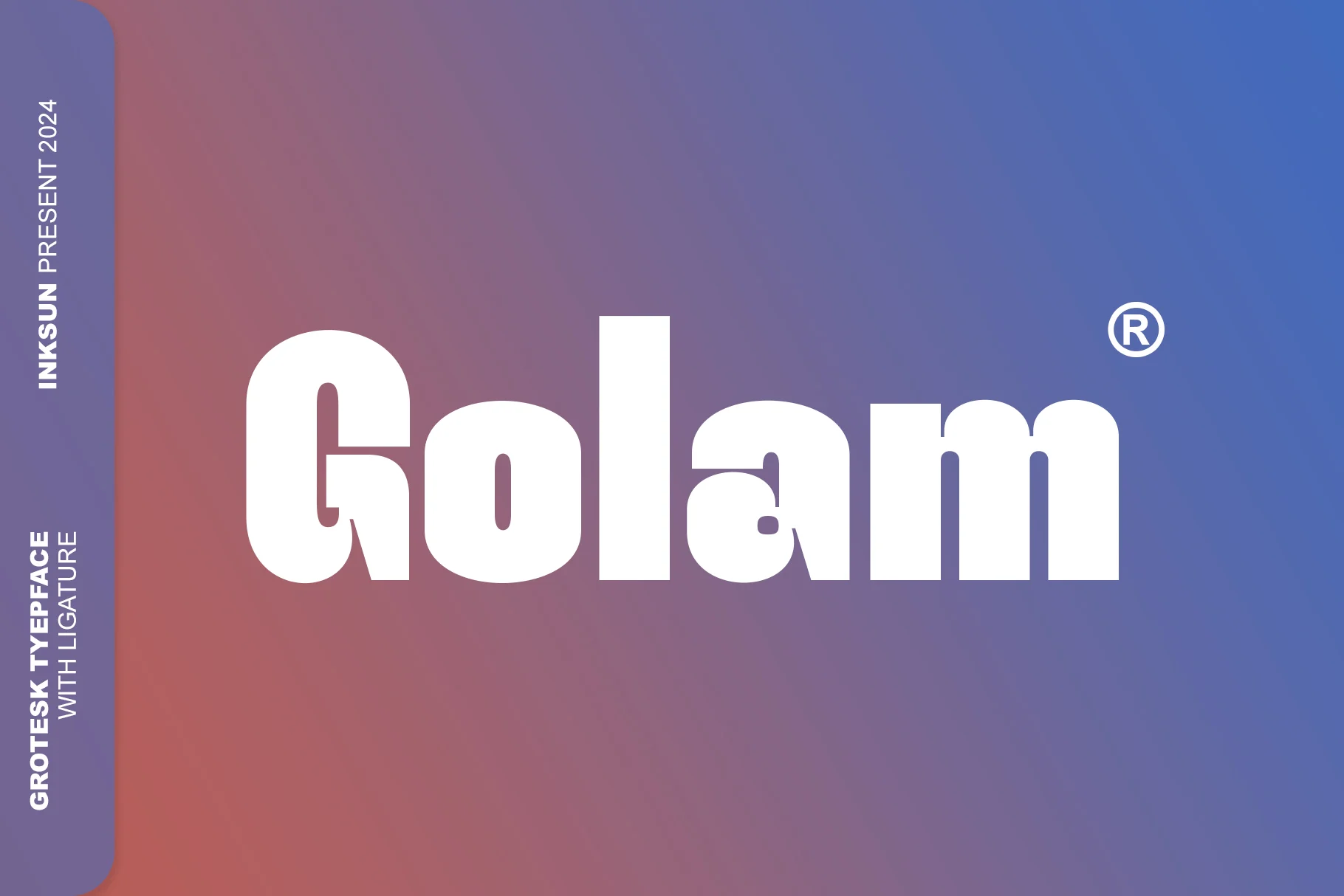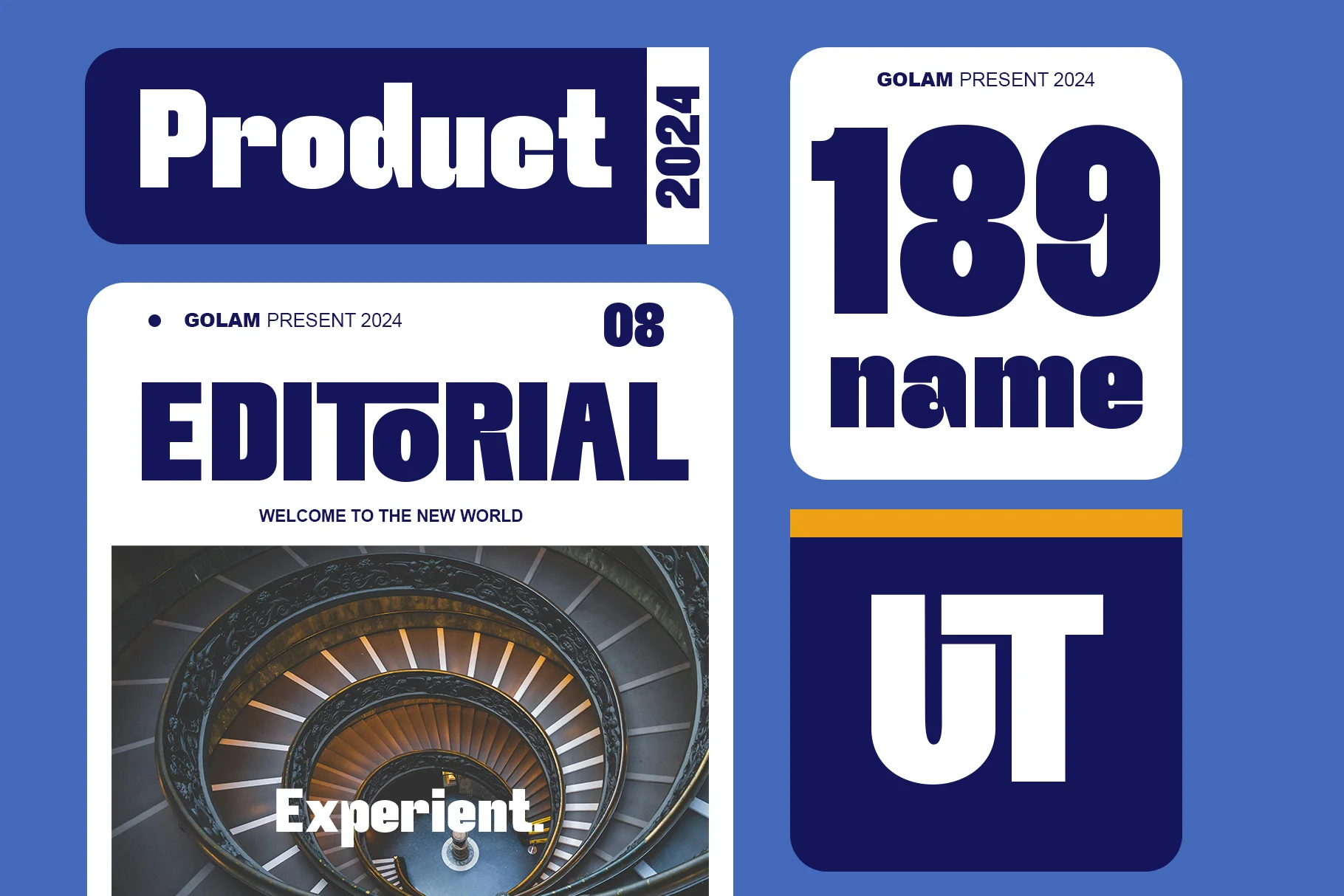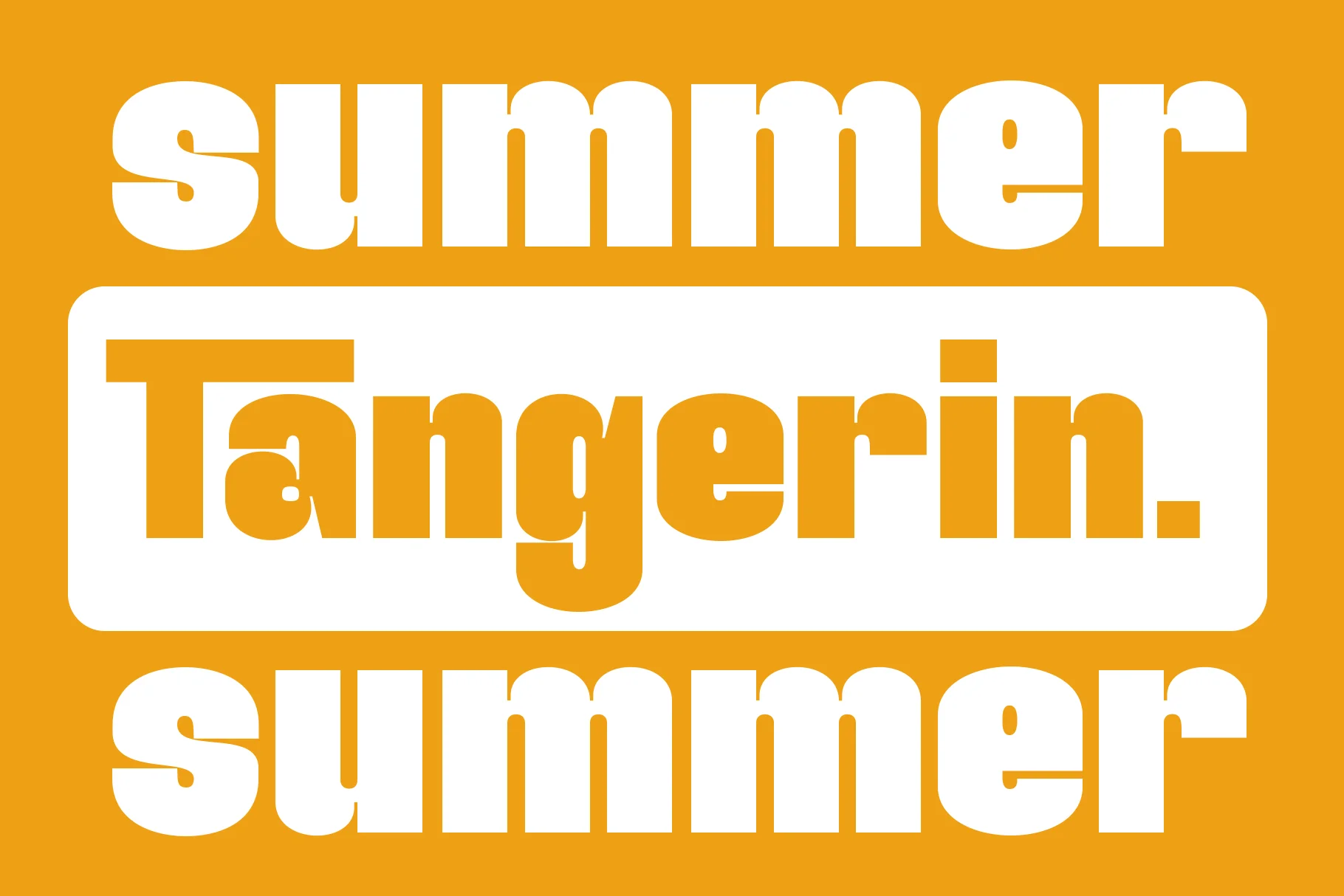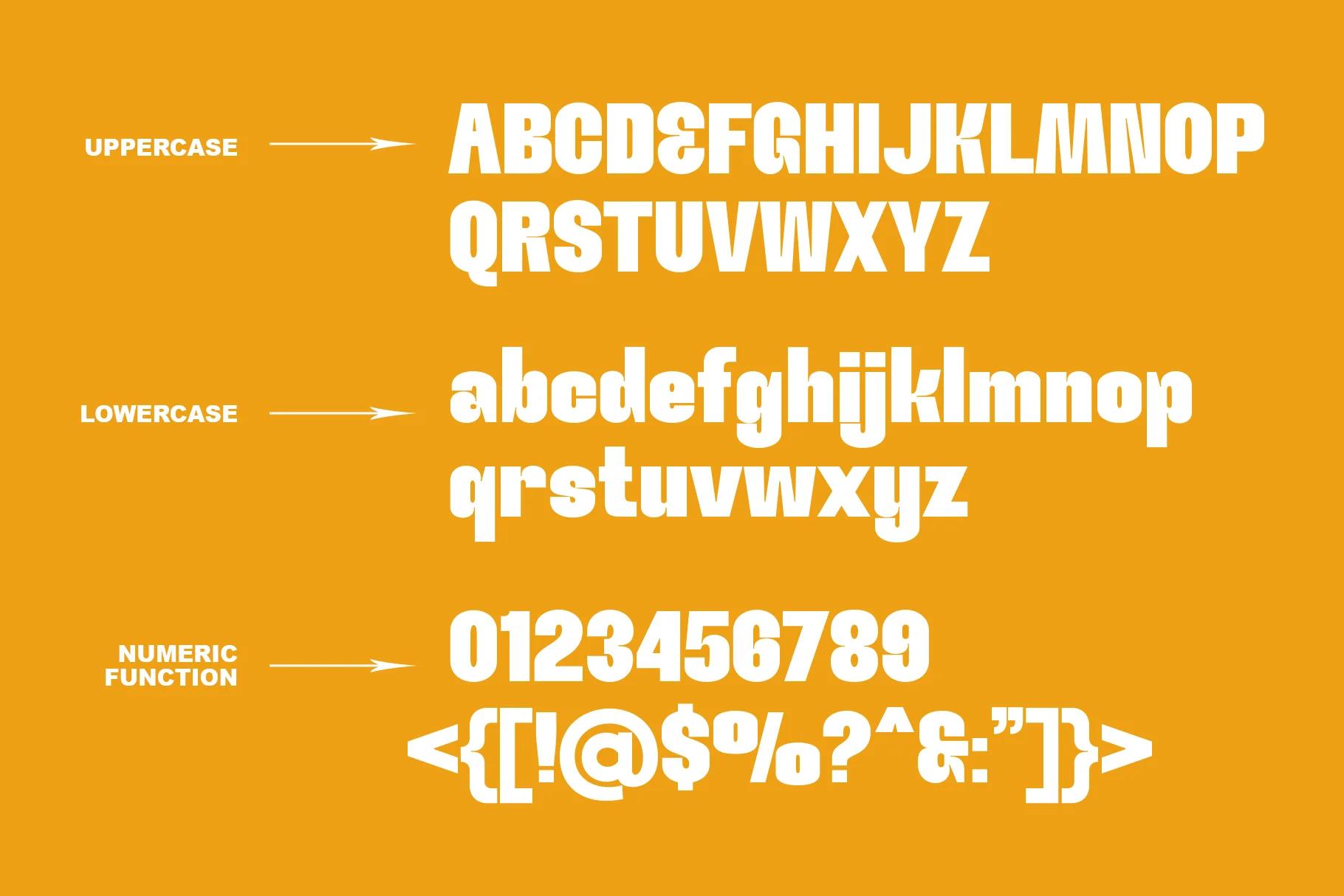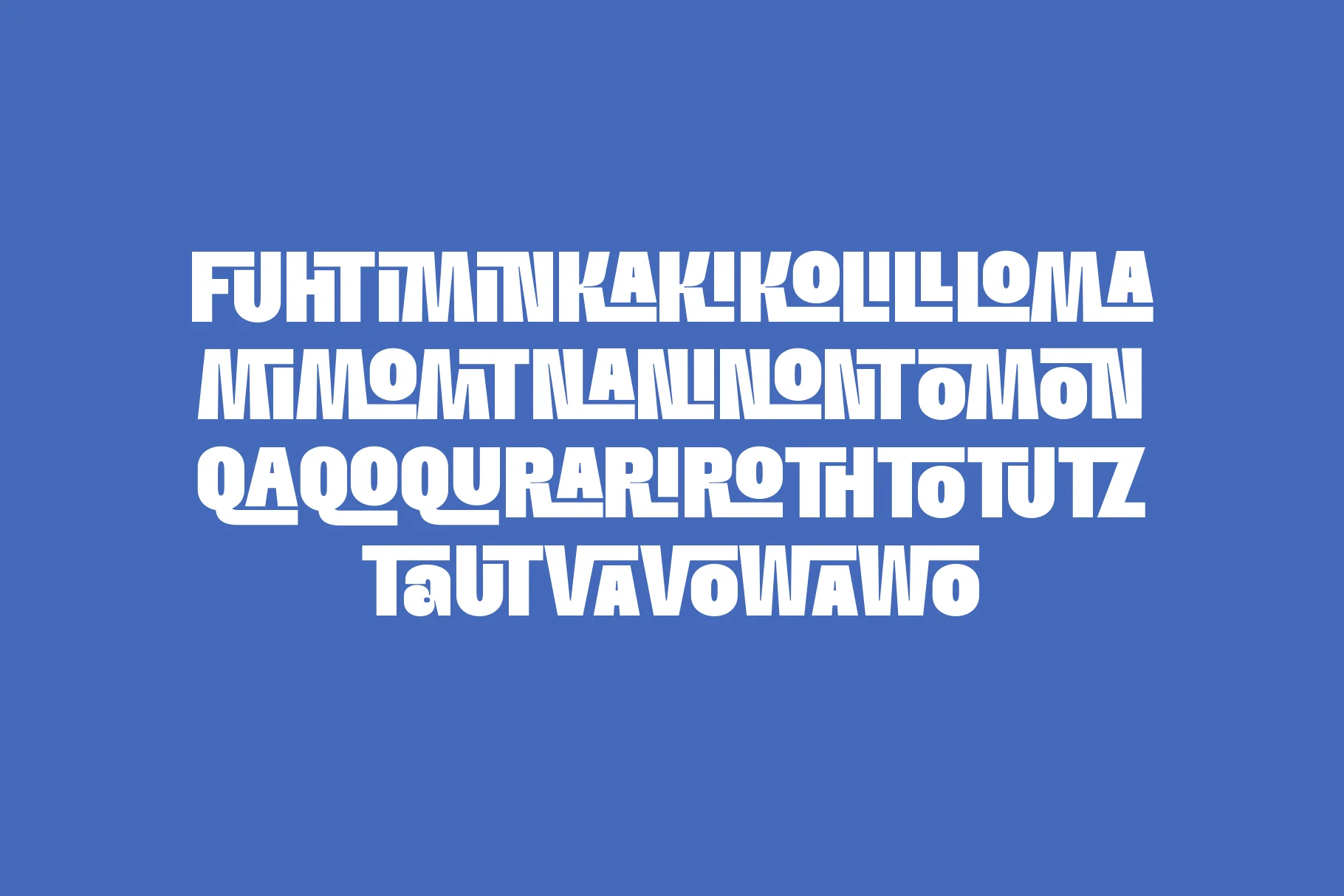
Golam
Golam is a grotesk sans-serif font. This font perfectly blends classic and functional typographic structures with a modern artistic touch through its unique use of ligatures. This font features very bold (extra bold) and solid characters, conveying a sense of stability, strength, and professionalism. Its main distinguishing feature is its creative use of ligatures, or letter connections.